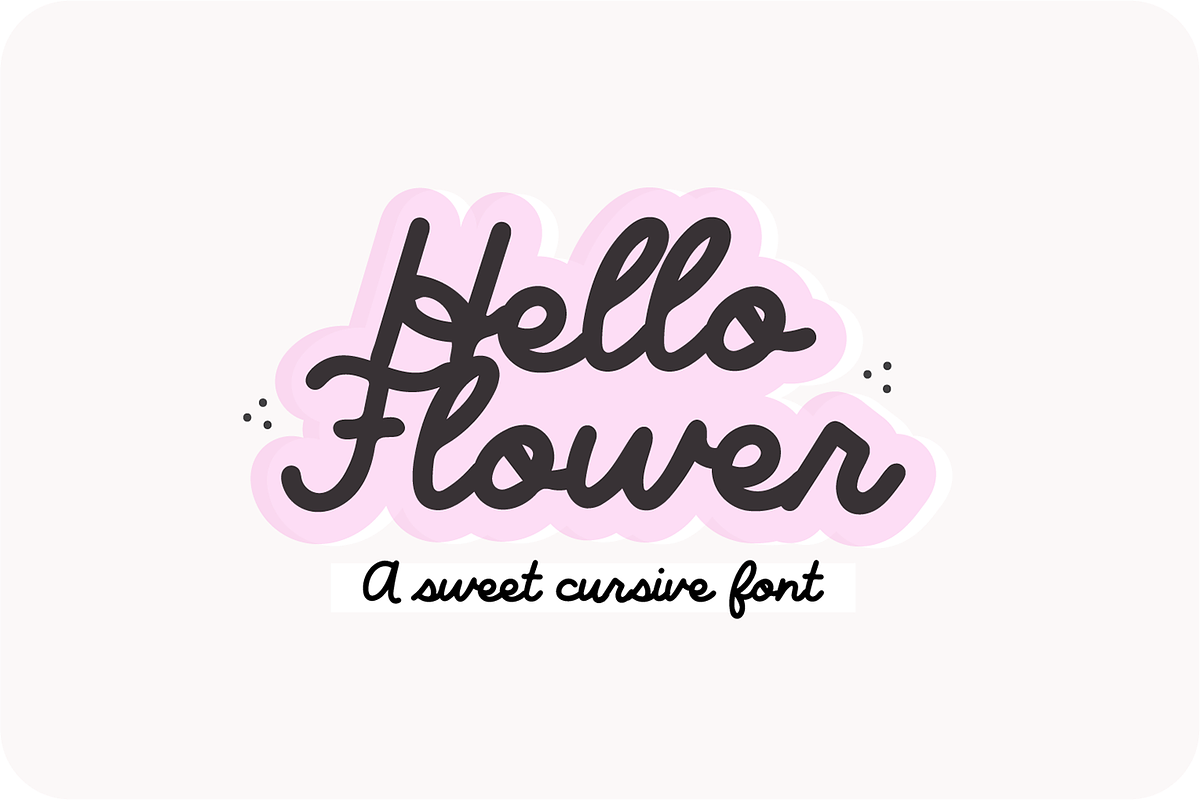
HELLO FLOWER Cursive Font Free Download
Hello Flower Cursive Font Free Download
Hello Flower Cursive Font Free Download is a sweet and graceful handwritten typeface that blooms with charm and femininity. With its flowing cursive style, delicate strokes, and floral-inspired elegance, this font is perfect for wedding invitations, branding for boutiques, social media graphics, greeting cards, and spring-themed designs.
Each letter feels soft and natural—like a note written in a blooming garden. Whether you're creating romantic designs or adding a handwritten touch to a product label, Hello Flower Cursive Font Free Download brings warmth, beauty, and a sense of joy.
It’s easy to read, lovely to look at, and ideal for both digital and print formats.